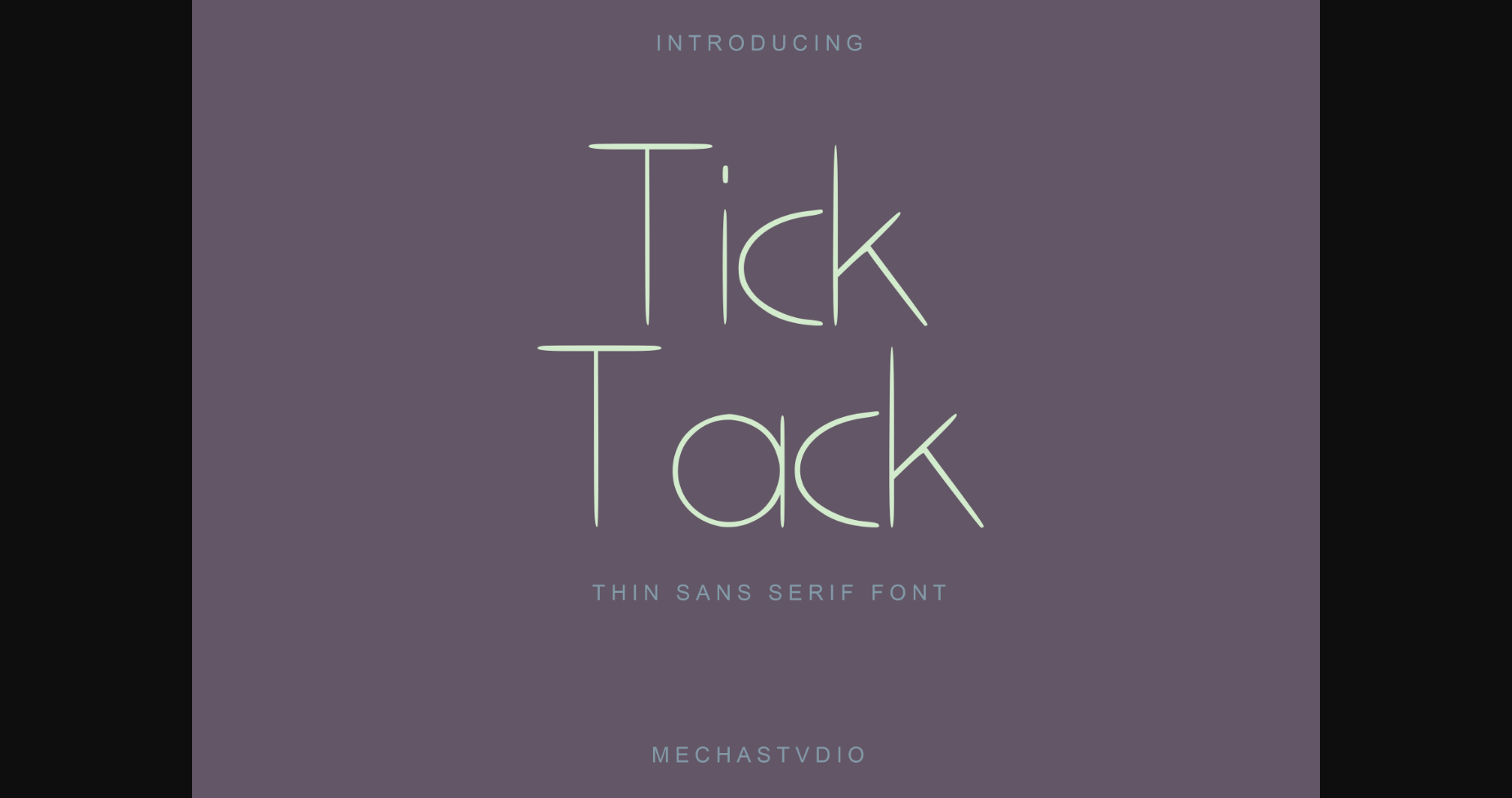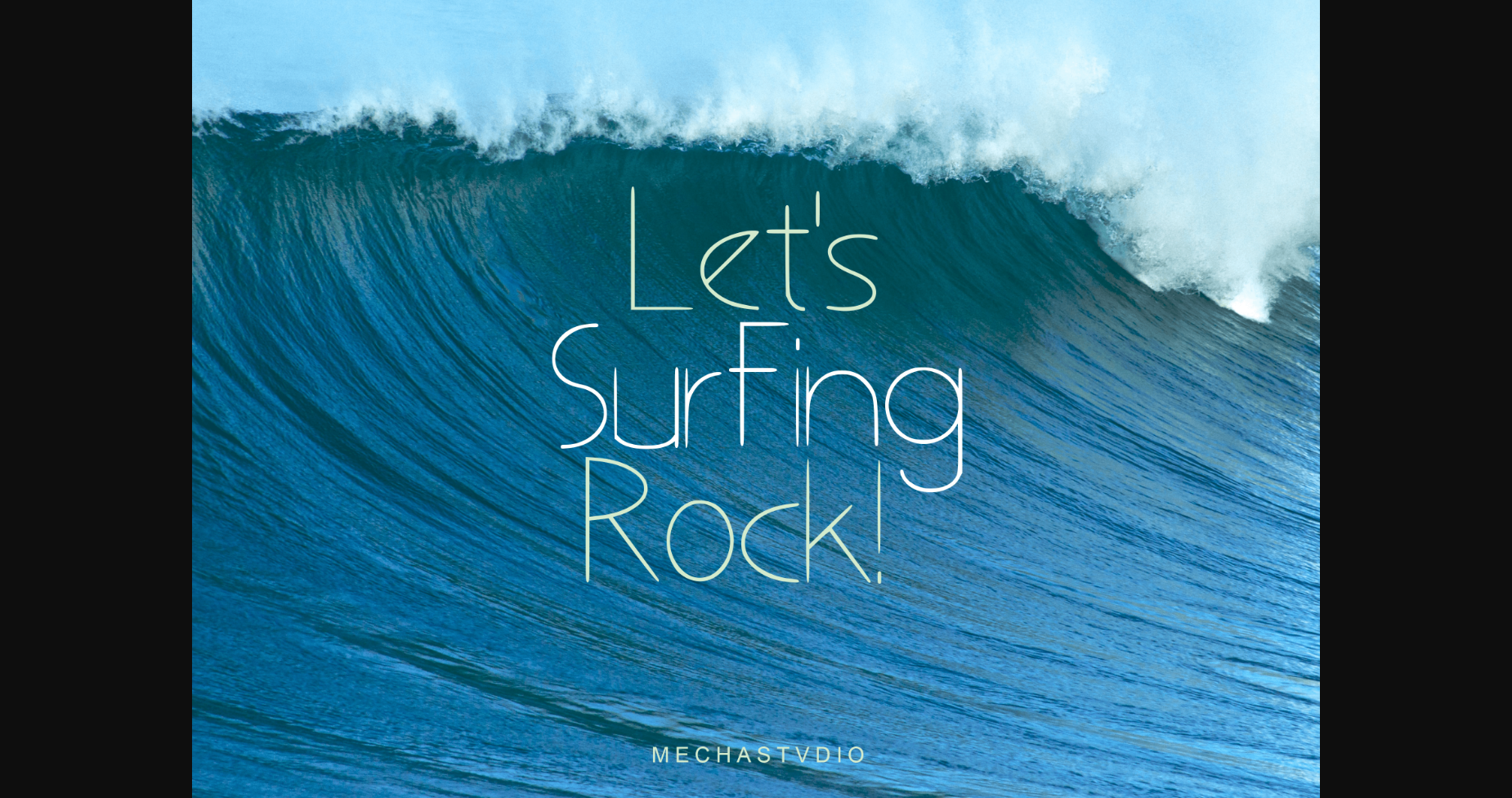
Tick Tack Font
About Tick Tack Font
Tick Tack is a simple, thin, and minimalist sans serif font. Its unique style is perfect for all your projects as it has the potential to transform them into a true standout.